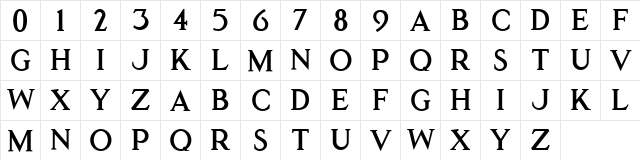
Metalarts 204 Flat Face Roman Regular
Design Context for Metalarts 204 Flat Face Roman Typeface
Metalarts 204 Flat Face Roman offers clean, dependable letterforms without strong stylistic allegiance, making it a practical choice for designers who need flexibility.
Pro Tip: Use Metalarts 204 Flat Face Roman in both headline and body roles to test its range before committing to a single application.